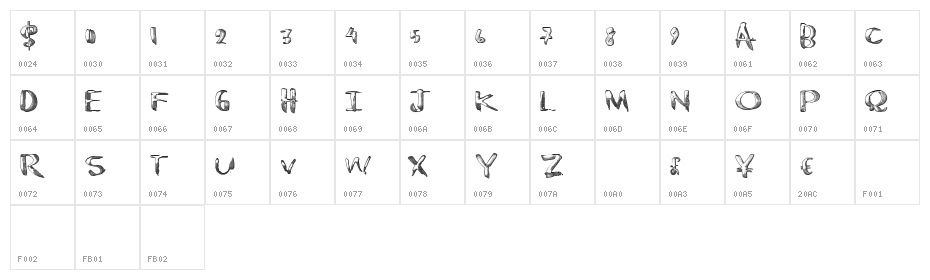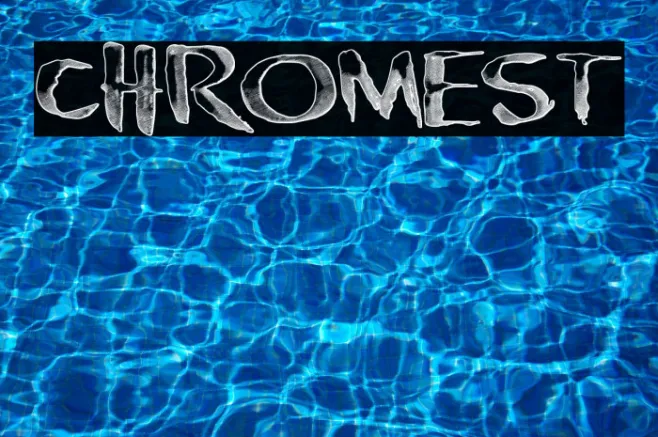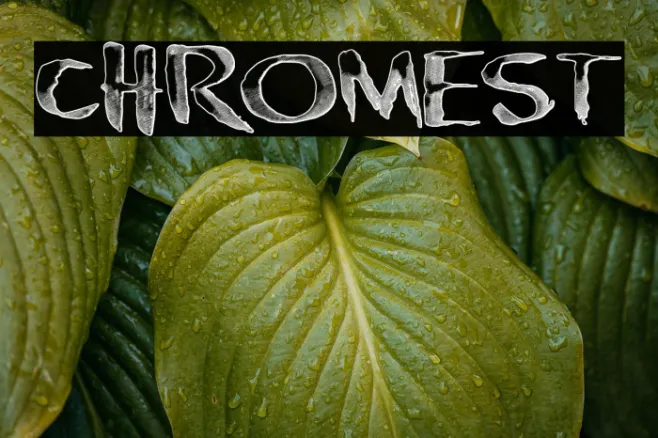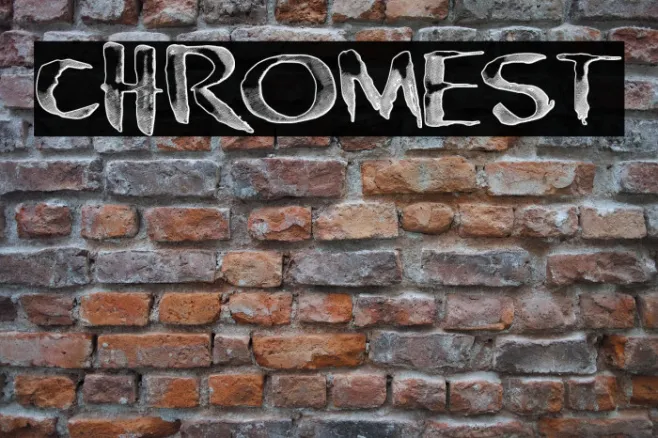
chromest Font
chromest Description
This font features a bold, artistic style with a hand-drawn appearance. The characters have a textured, almost metallic look, giving them a unique, three-dimensional effect. The uppercase and lowercase letters maintain a consistent design, with slightly exaggerated curves and angles that add to the font's dynamic feel. The numbers and special characters follow the same stylistic approach, ensuring a cohesive look across all glyphs. The overall design is eye-catching and suitable for creative projects that require a distinctive and bold typeface.
| Proposed Projects | Ideal for posters, album covers, branding, and creative digital art projects. |